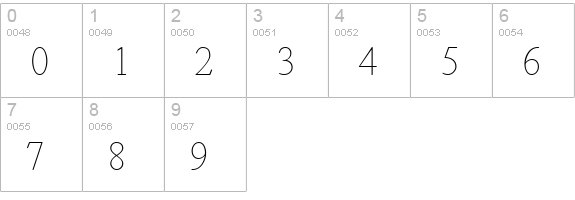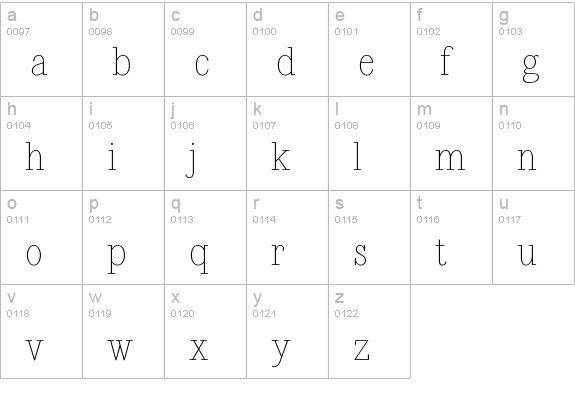
Revelation BTN Lt font is a stunningly elegant and versatile typeface that is sure to captivate and engage any audience. With its graceful curves and delicate serifs, this font exudes a sense of sophistication and refinement. Perfect for a wide range of design projects, from logos and branding to invitations and editorial layouts, Revelation BTN Lt font adds a touch of timeless beauty to any composition. Its clean lines and balanced letterforms make it highly legible, ensuring that your message comes across clearly and effectively. But what truly sets Revelation BTN Lt font apart is its accessibility. This incredible font is available to download for free at FontsMarket.com. Yes, you read that right - absolutely free! Now you can enjoy the beauty and versatility of Revelation BTN Lt font without breaking the bank. So don't miss out on this amazing opportunity to enhance your designs with a font that effortlessly combines elegance and practicality. Visit FontsMarket.com today and discover the wonders of Revelation BTN Lt font for yourself.